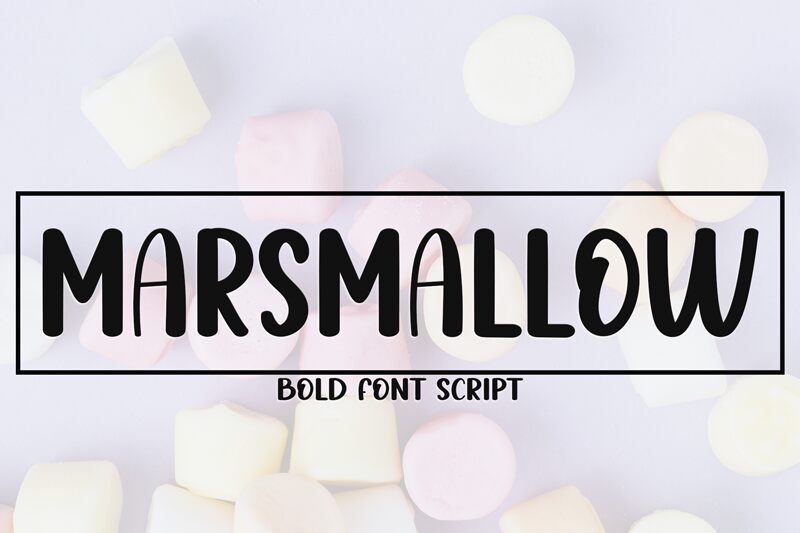
Marsmallow font is a fancy creation brought by creatype designer and it’s available as a free font for personal use. Inspired by themed illustration of translucent lettered marshmallow or jelly in pure white, orange color, and outer outline light green. The designs were also generated with mirrored minimalist big, rounded, and fancy typography.
Use it to elevate branding and various design presentations for kids, parties, family oriented businesses, food brands, and the general creative industry. This would give a warm and inviting visual outlook that would captivate your audience whether through display on print or screens.
This font embodies a classy calligraphic influence while maintaining a contemporary and fresh appeal. Its versatility makes it suitable for a variety of creative applications, including letterheads, titles, and stationery.